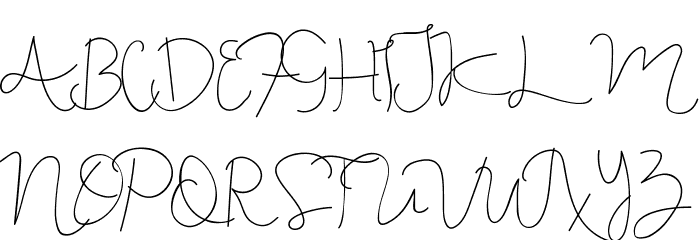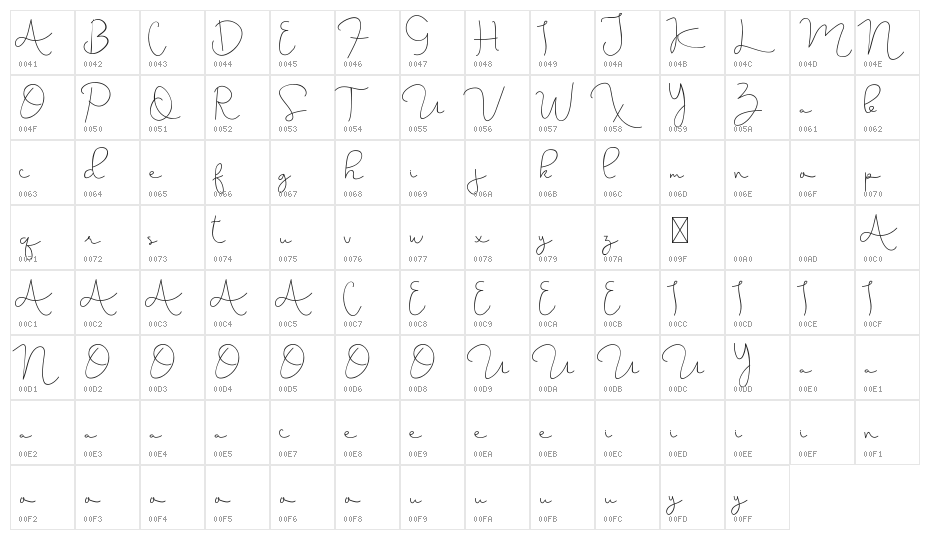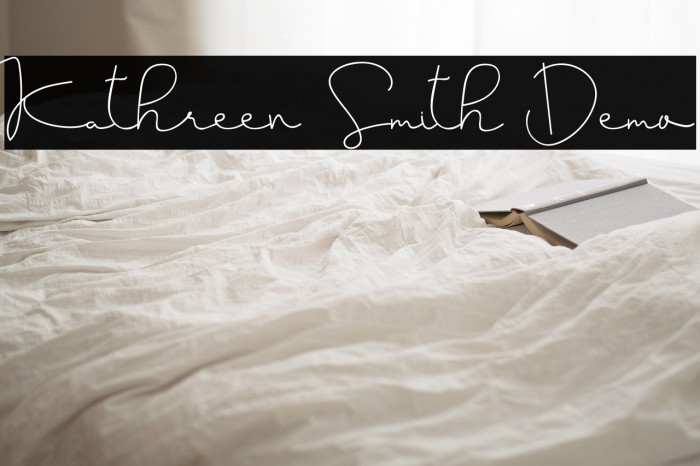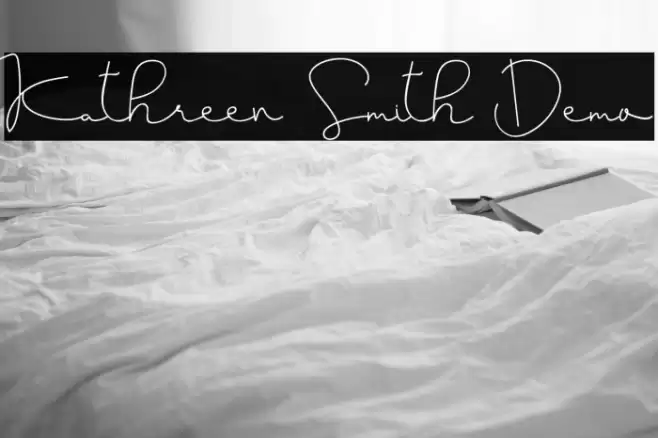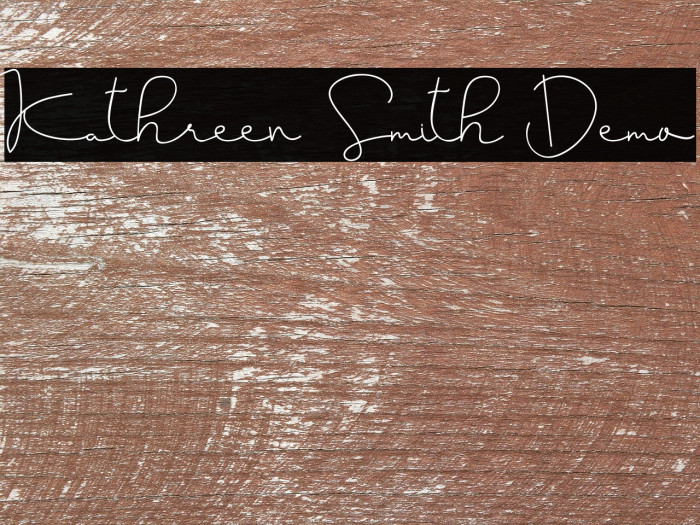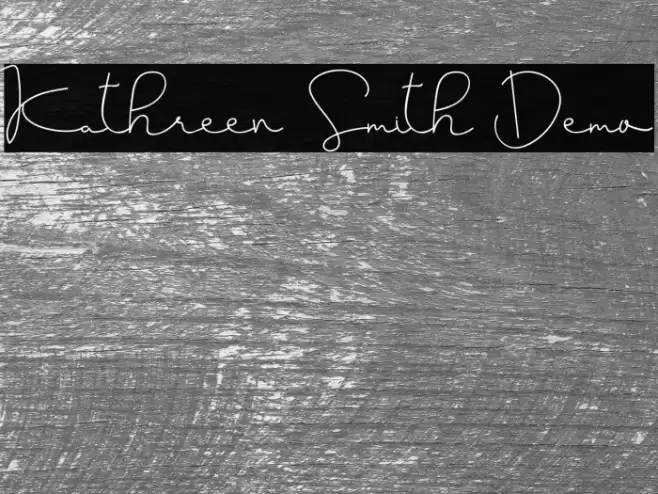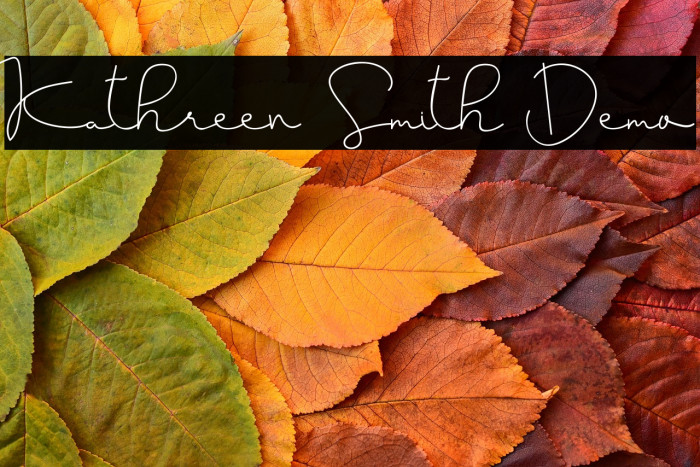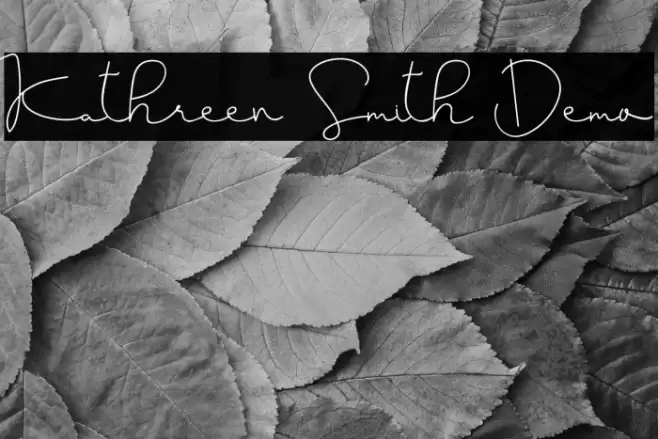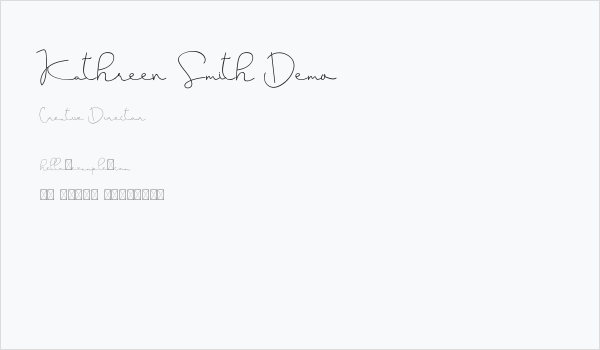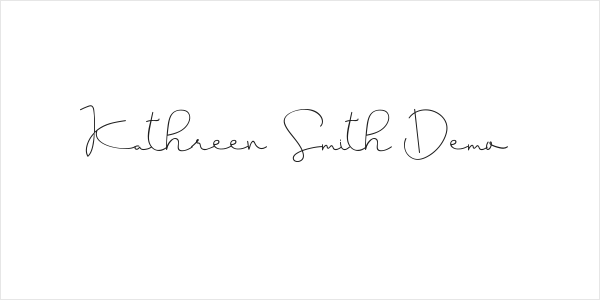
Kathreen Smith Demo Font
Kathreen Smith Demo Description
This font features a whimsical and flowing handwritten style, characterized by its elegant and fluid strokes. The letters are interconnected, creating a seamless and continuous script that exudes a sense of grace and sophistication. The uppercase letters maintain a consistent height, while the lowercase letters exhibit a playful variation in size, adding to the font's charm. The overall appearance is light and airy, with a delicate touch that makes it suitable for creative and artistic projects. Its unique style captures attention while maintaining readability, making it an excellent choice for personal branding, invitations, and decorative purposes.
| Proposed Projects | Ideal for wedding invitations, personal branding, greeting cards, and artistic projects. |